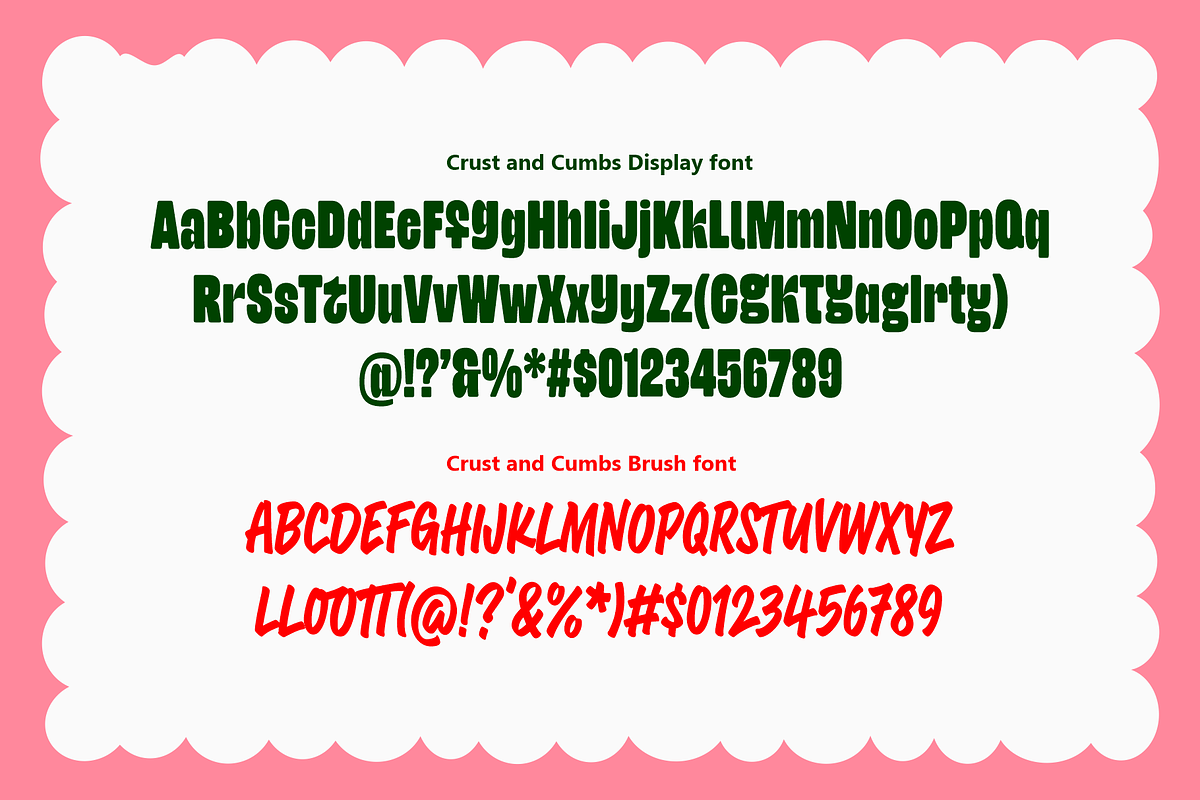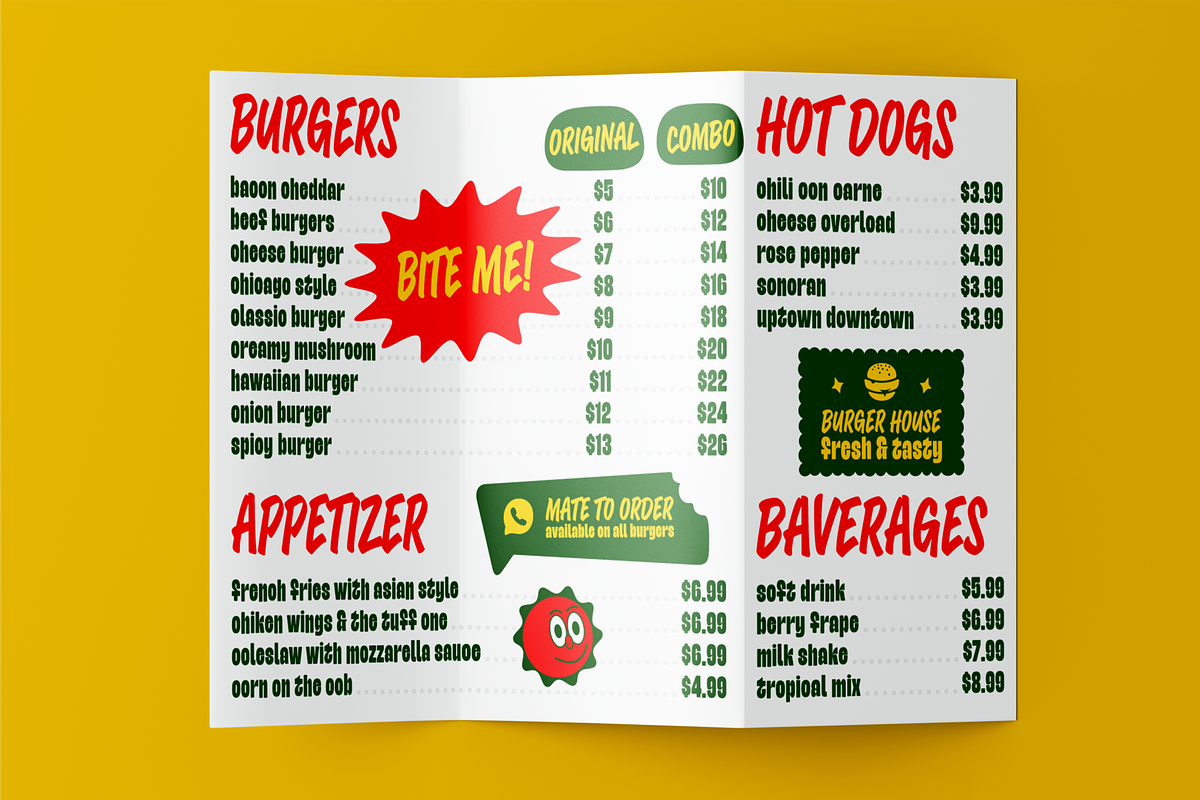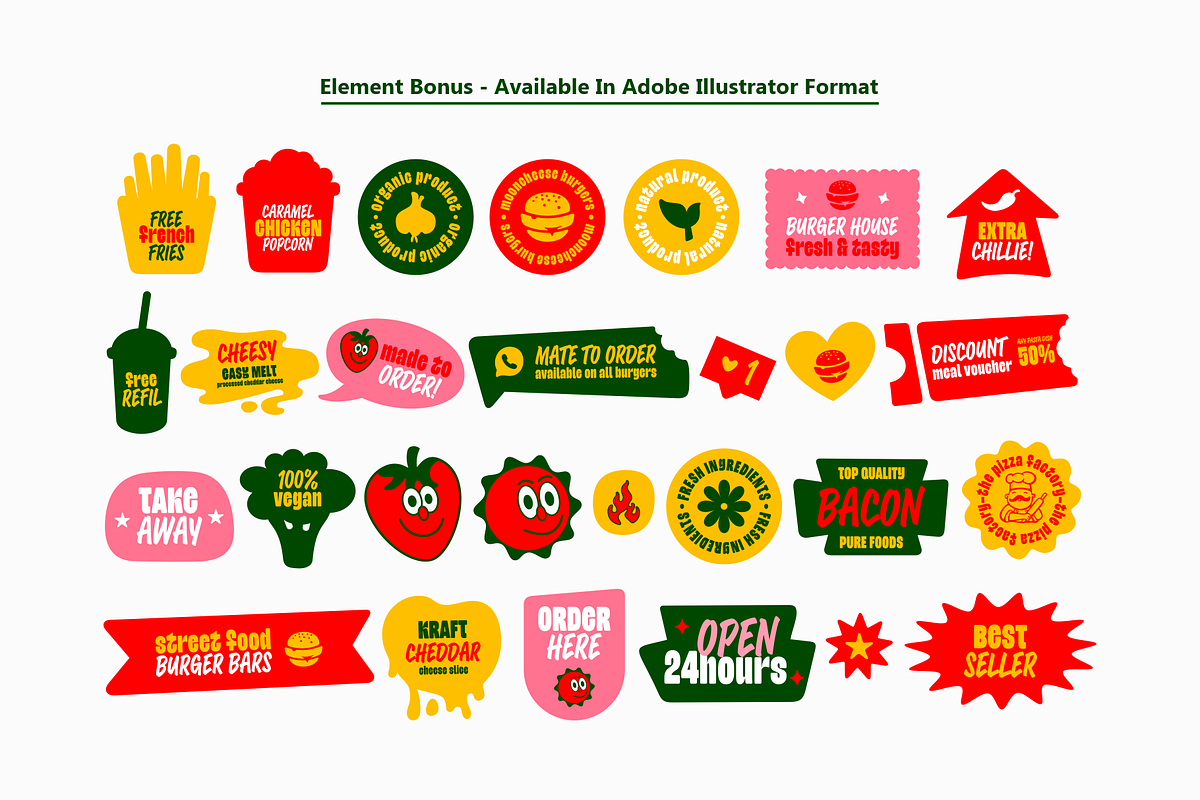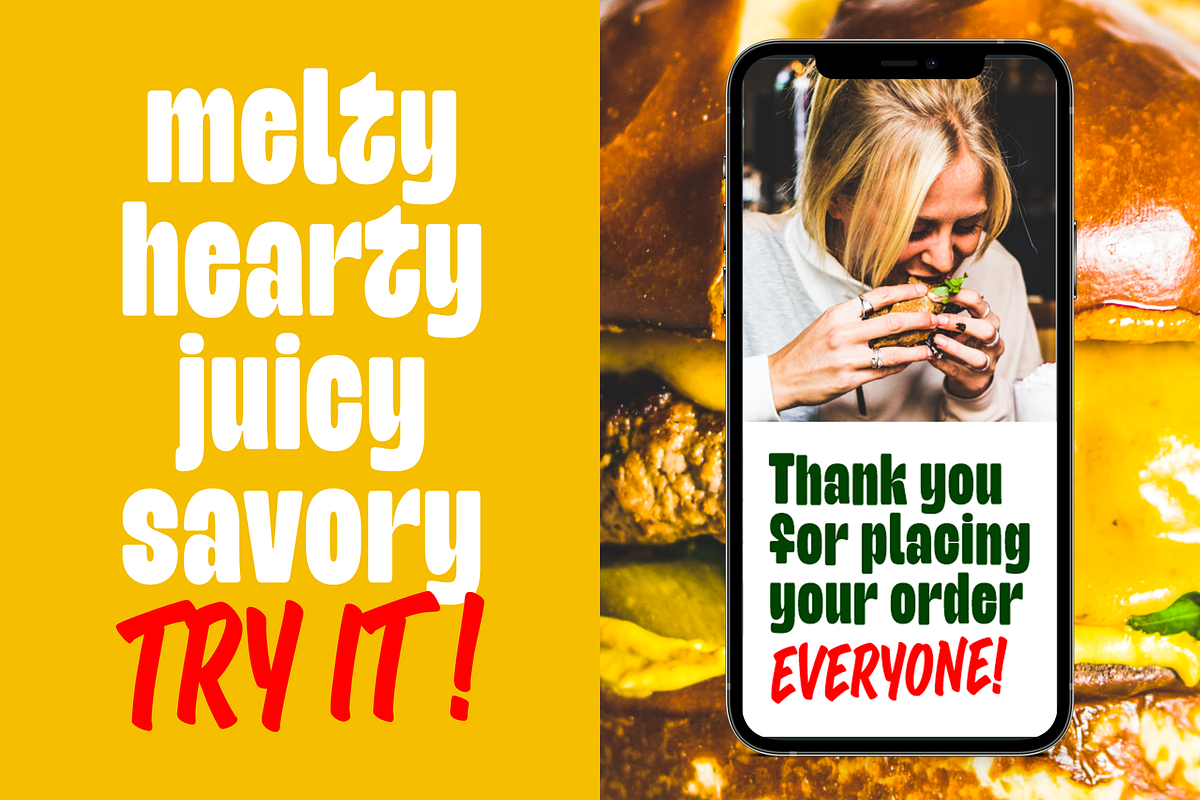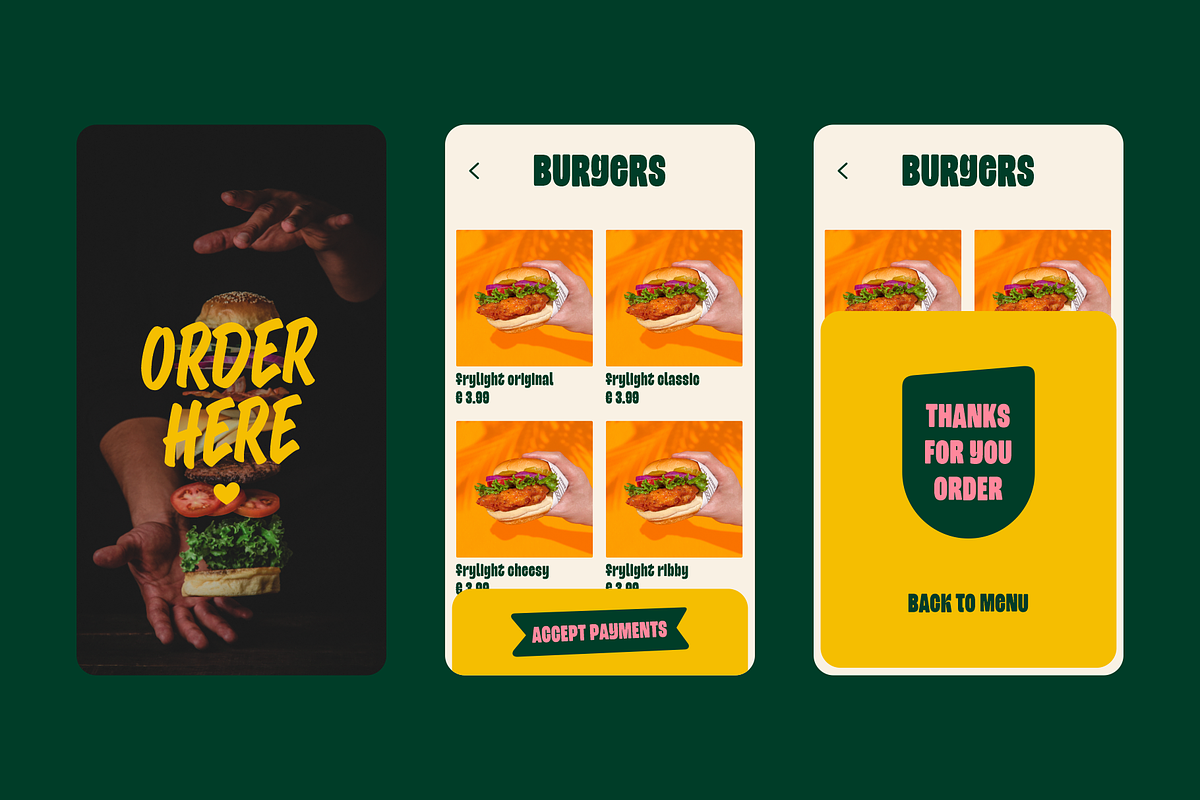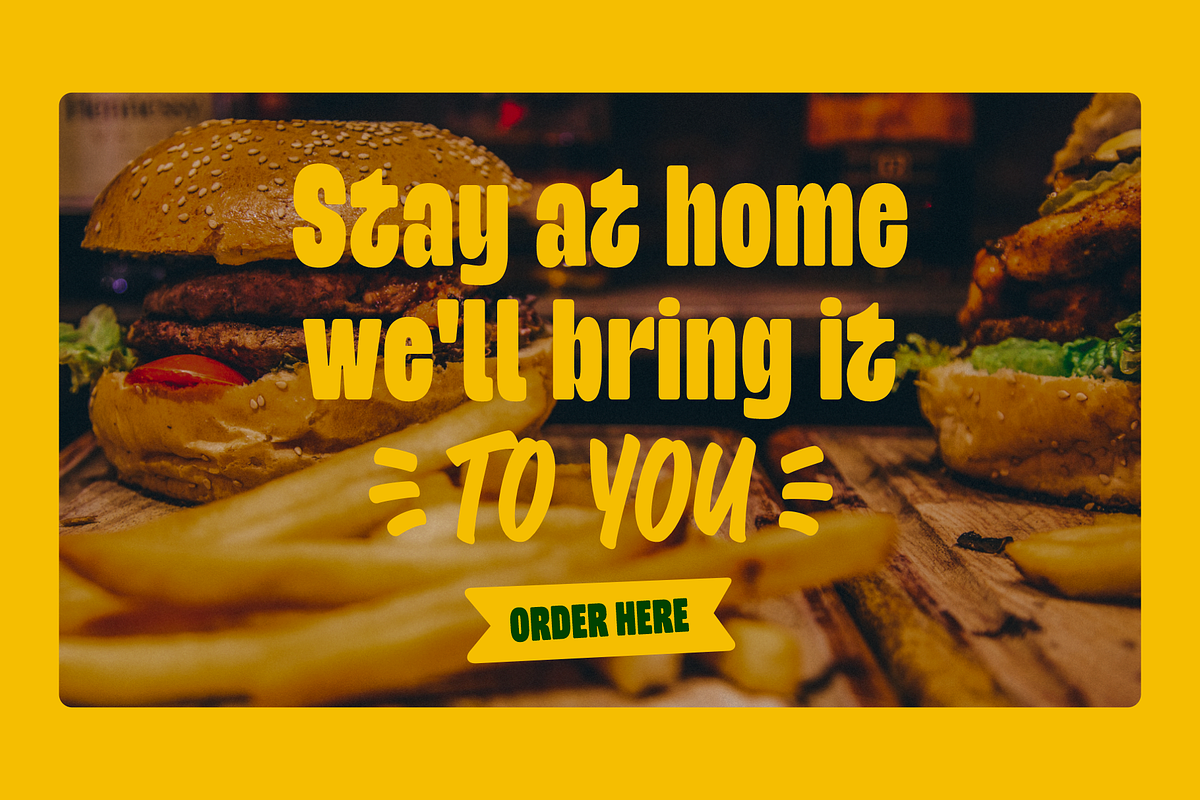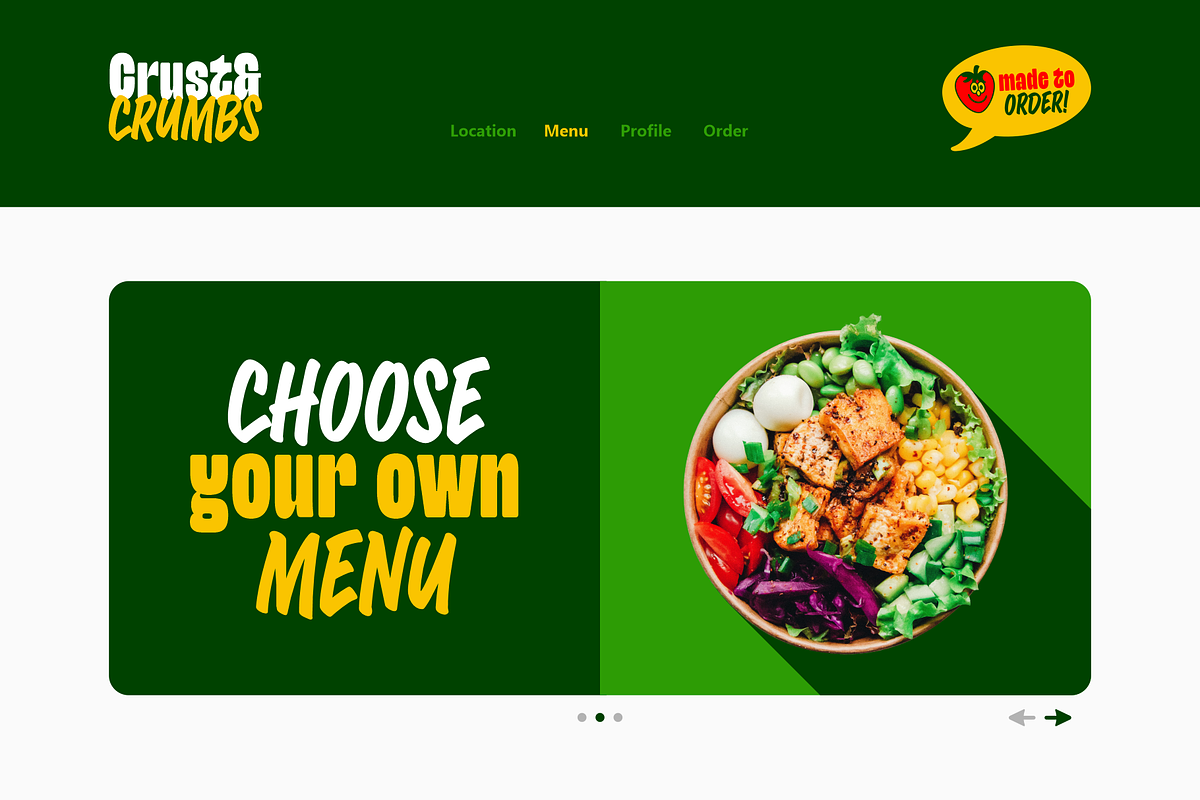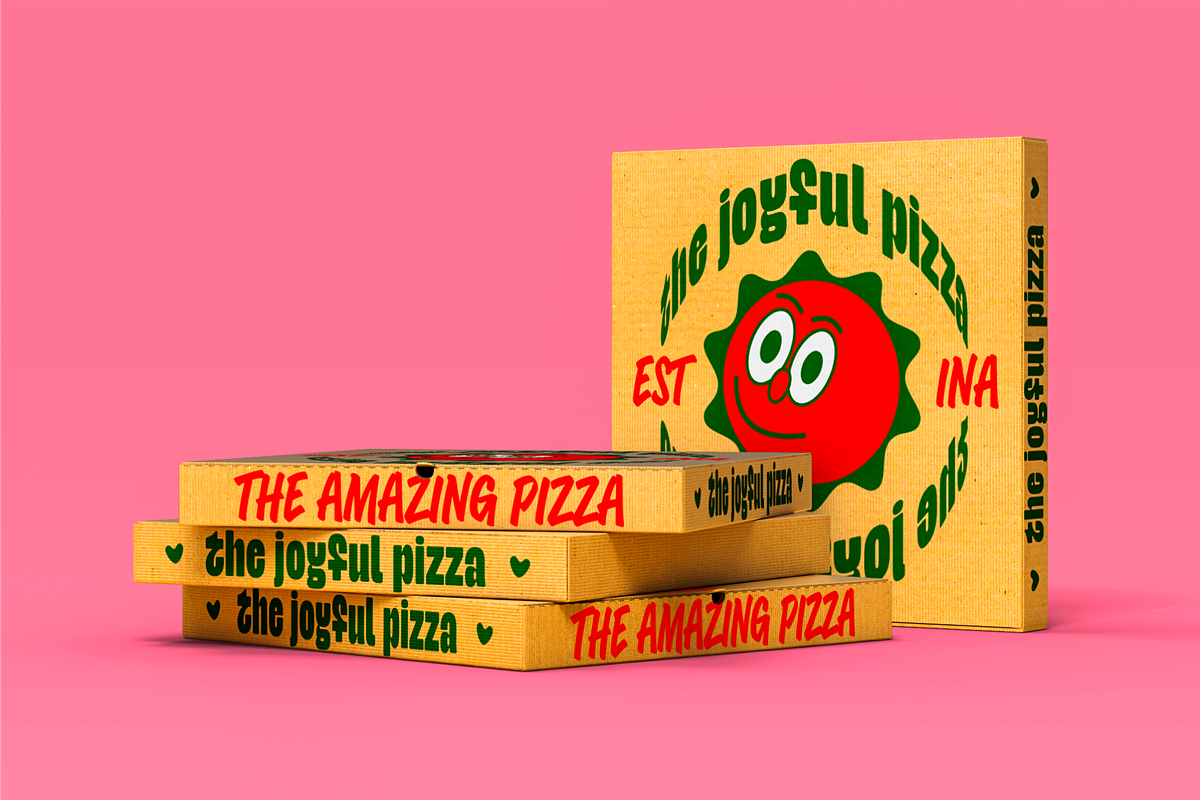
Crust and Crumbs Foodie Font Duo
Discover the perfect pairing for your culinary creations with the Crust and Crumbs Foodie Font Duo, featuring a harmonious blend of rounded sans-serif and expressive brush fonts. Whether you're a food blogger, restaurant owner, or a passionate home cook, this font duo is designed to add a delectable touch to your food-related designs.
Why Choose Our Foodie Font Duo?
Diverse Styles: This duo offers a dynamic combination of the clean and modern look of rounded sans-serif fonts and handcrafted feel of brush fonts.
Handcrafted Appeal: The brush font style adds a personal and artisanal touch to your culinary creations, making your designs feel homemade and authentic.
Culinary Aesthetics: Elevate your food-related content with fonts that capture the essence of fine dining and delectable dishes.
Food Branding: Establish a unique and memorable brand identity for your food-related business, blog, or website.
Recipe-Ready: Enhance your recipes with fonts that make them not only easy to follow but also visually delightful.
Gourmet Typography: Let your passion for food shine through in your designs with this gourmet typography duo.